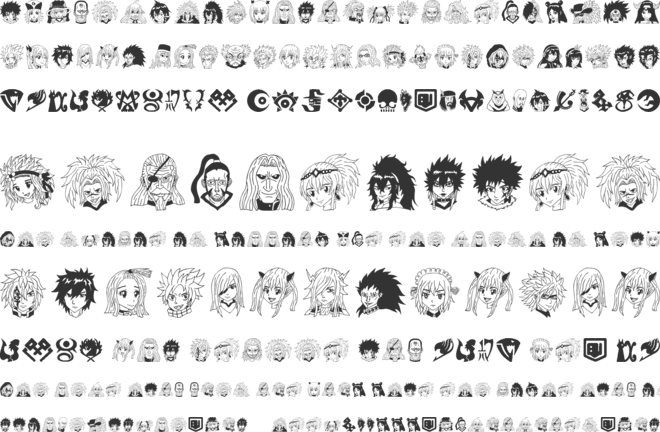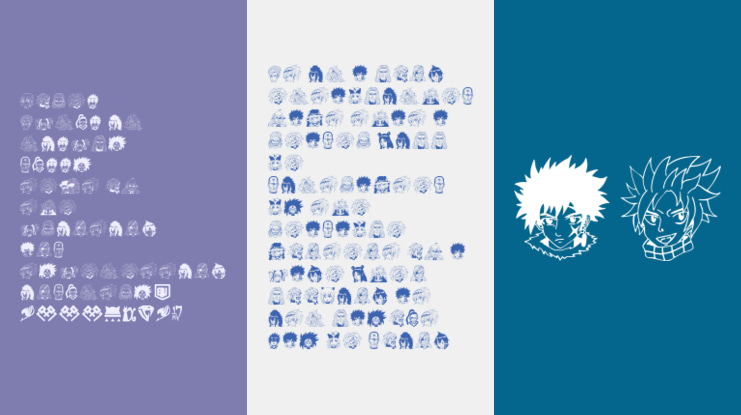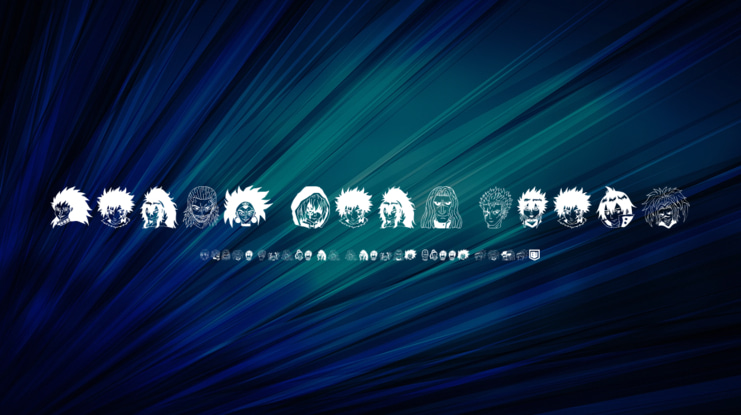
Fairy Tail Image Font
I love the anime of Fairy Tail and because of that I made this font just for fun. your contribution is very valuable for me to make more anime fonts.